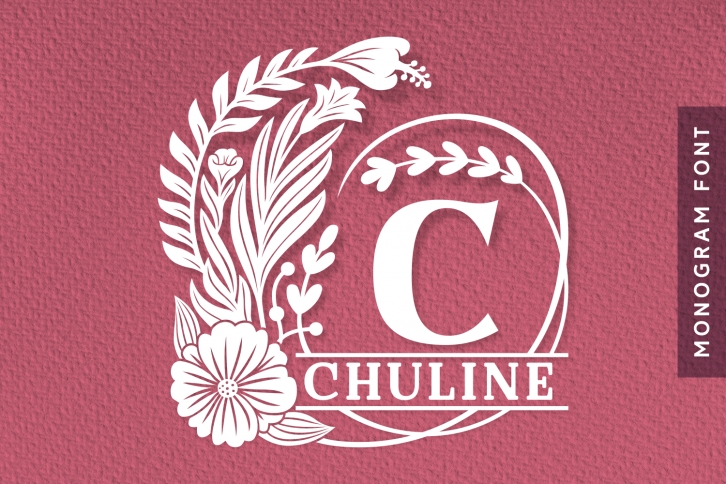
Chuline is a dainty and unique decorative font. Add this romantic and lovely looking font to each of your love letters, wedding invitations or favorite design ideas, and you will be astounded by the outcome.Â